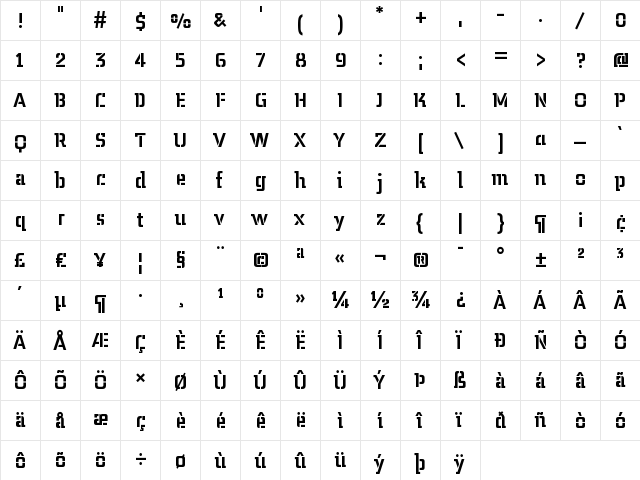
MidnightKernboyStencil Regular
Design Context for MidnightKernboyStencil Typeface
MidnightKernboyStencil borrows the utilitarian aesthetic of stencil lettering, with its characteristic cutaways and no-frills construction lending an industrial edge.
A strong choice for packaging that needs edge, warehouse aesthetics, and rough-and-ready visual identities.
Pro Tip: Use MidnightKernboyStencil at large sizes on packaging, posters, or apparel where the stencil cutaways read clearly. Avoid small sizes where those gaps become visual noise.